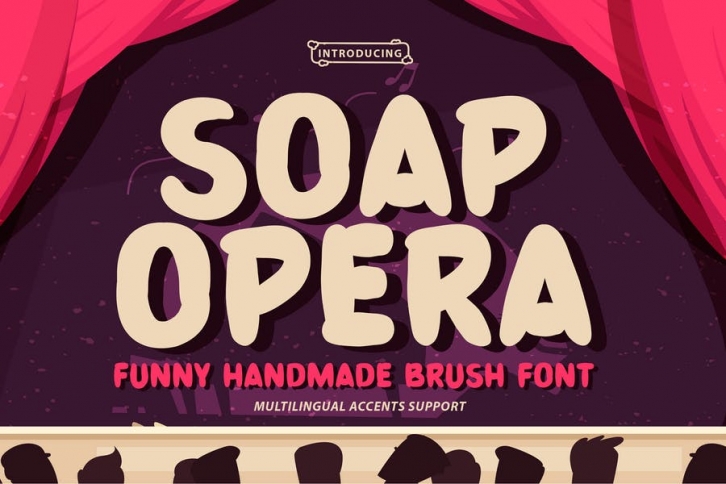
Here comes a New font, Soap Opera is a Funny Handmade Brush Font that is written casually and quickly amazing. Letters are made with brushes on Procreate. Then crafted carefully drawn into vector format.
That is why Soap Opera has Stylish and unique characteristic more natural look to your text with a more modern look to your text.
Soap Opera is perfect for homeware designs,branding projects, Logo design, Quotes product packagingprinted quotes, invitations, cards, product packaging, headers, Logotype, Letterhead, PosterLabel, cartoon, and comic etc.